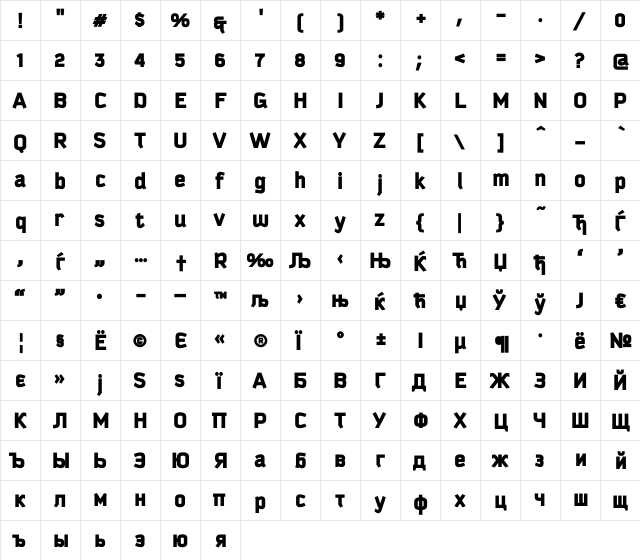
Kautiva Cyrillic Black Regular
Design Context for Kautiva Cyrillic Black Typeface
Kautiva Cyrillic Black offers clean, dependable letterforms without strong stylistic allegiance, making it a practical choice for designers who need flexibility.
Pro Tip: Use Kautiva Cyrillic Black in both headline and body roles to test its range before committing to a single application.